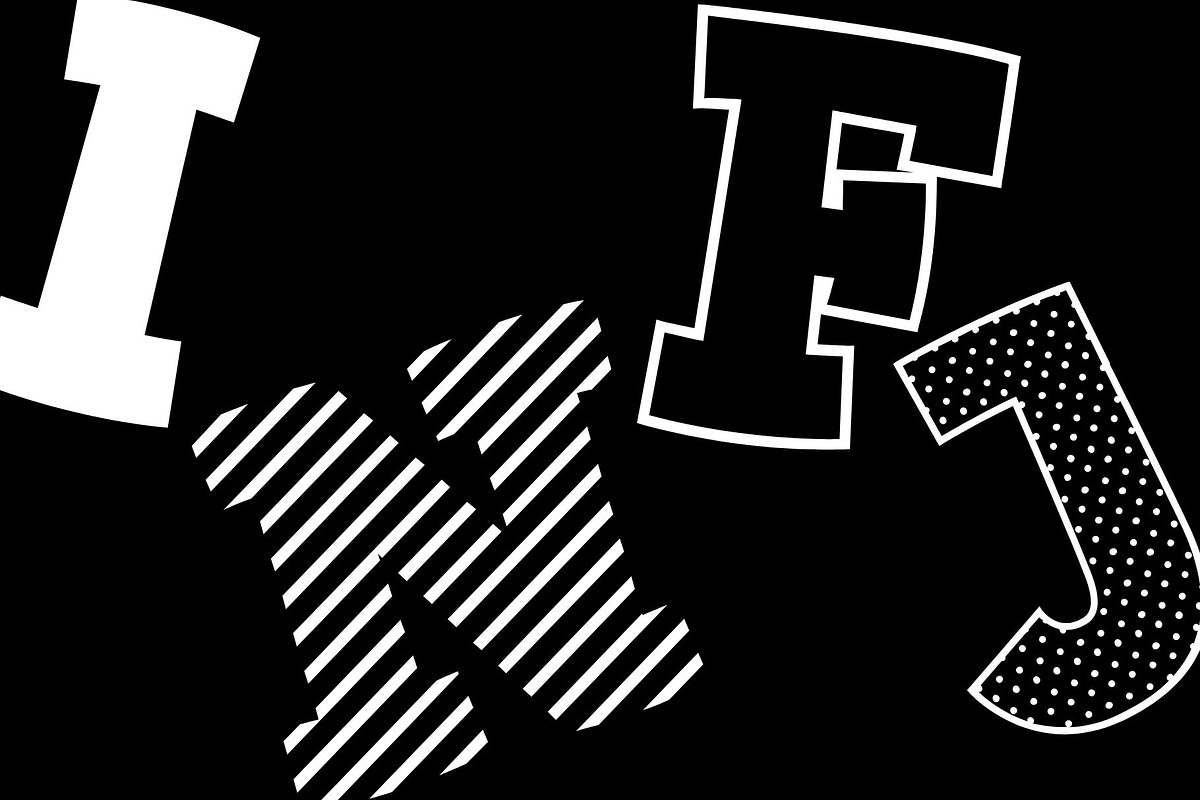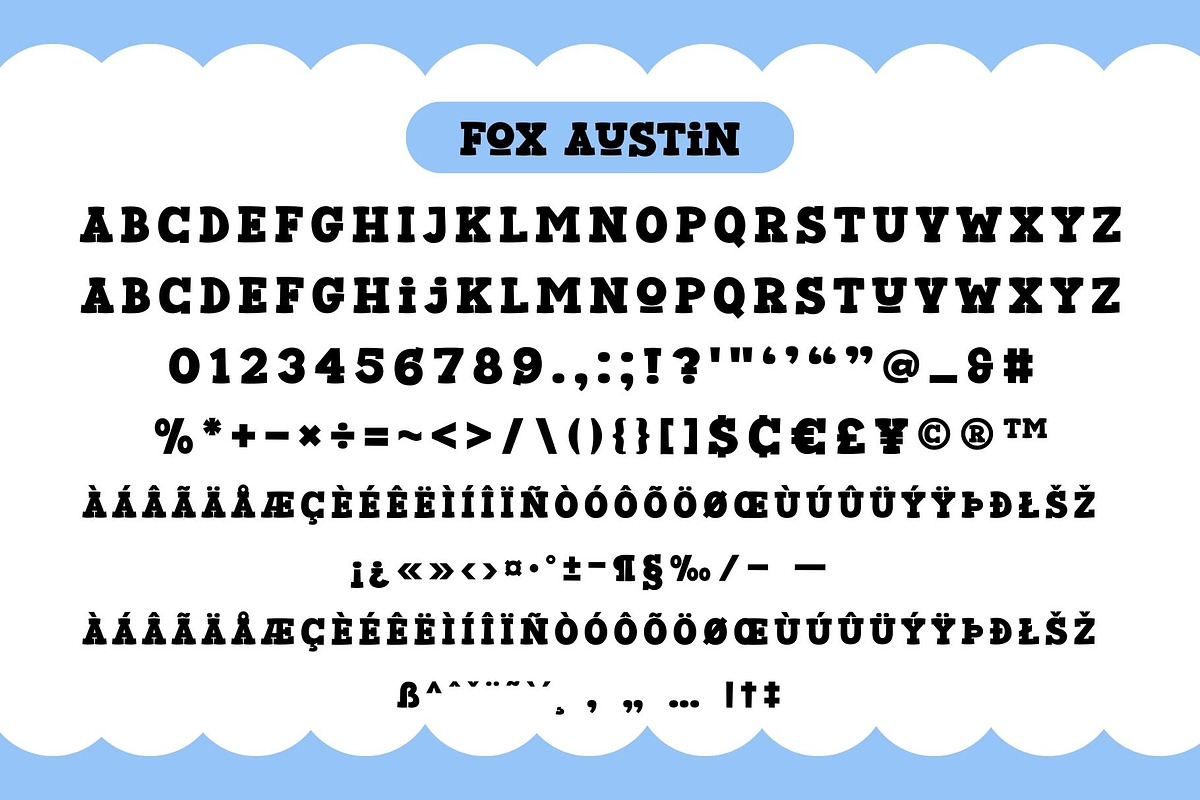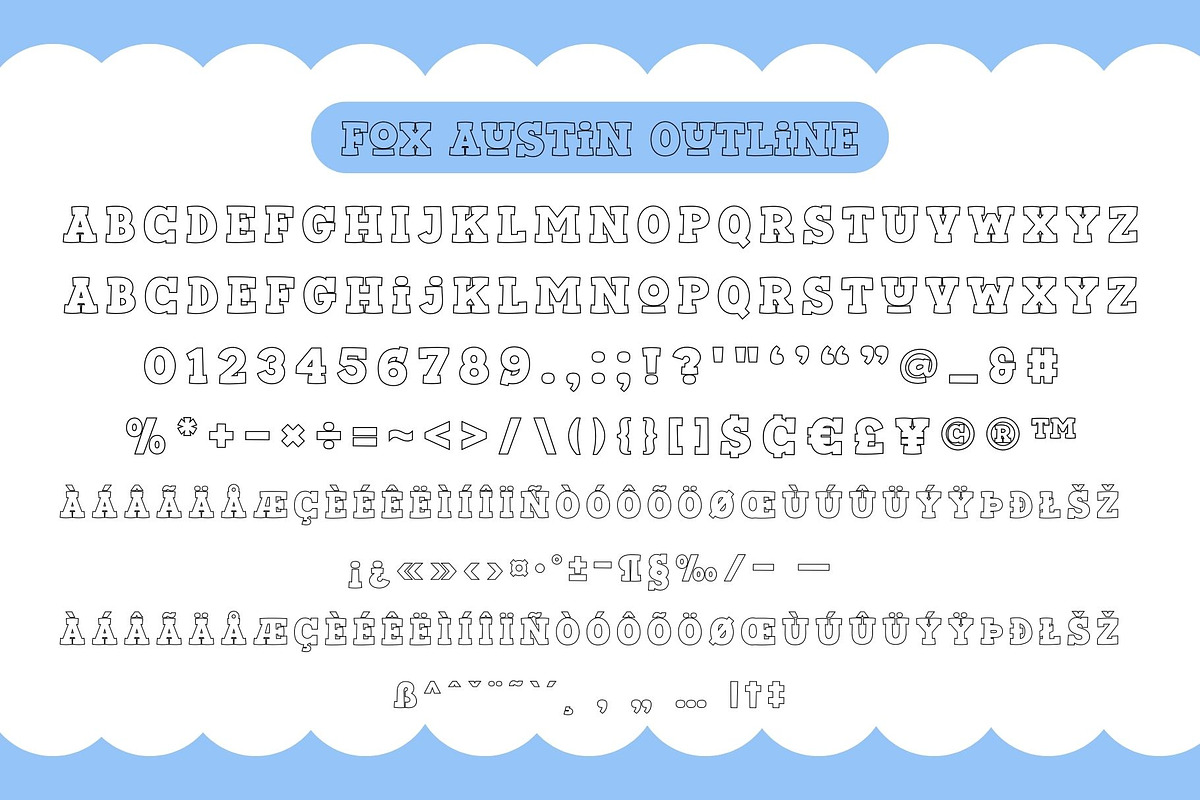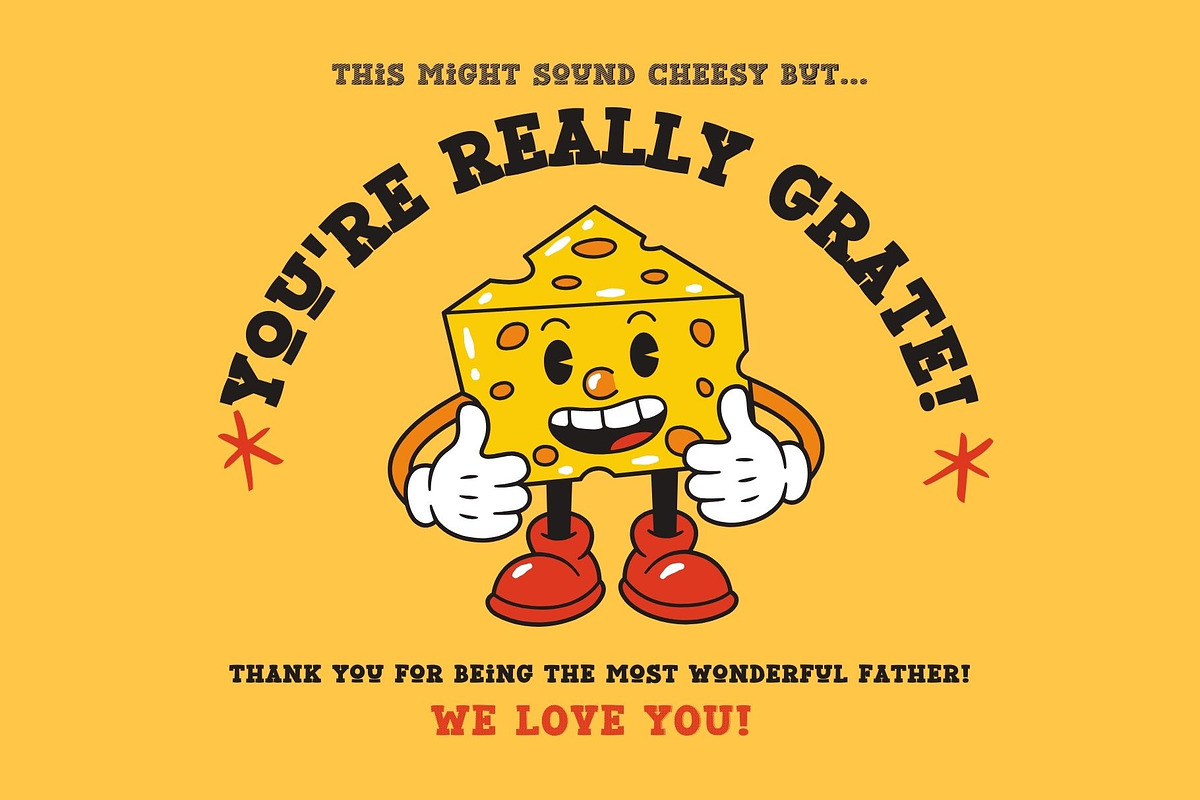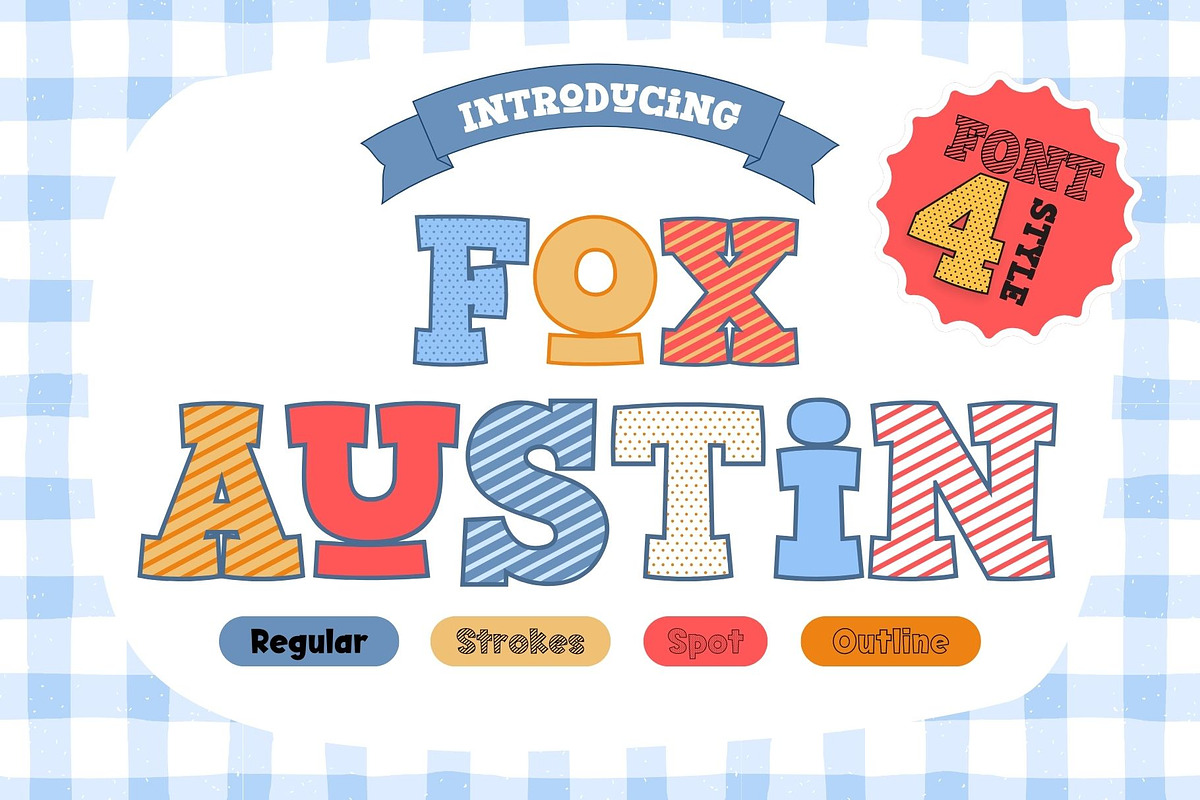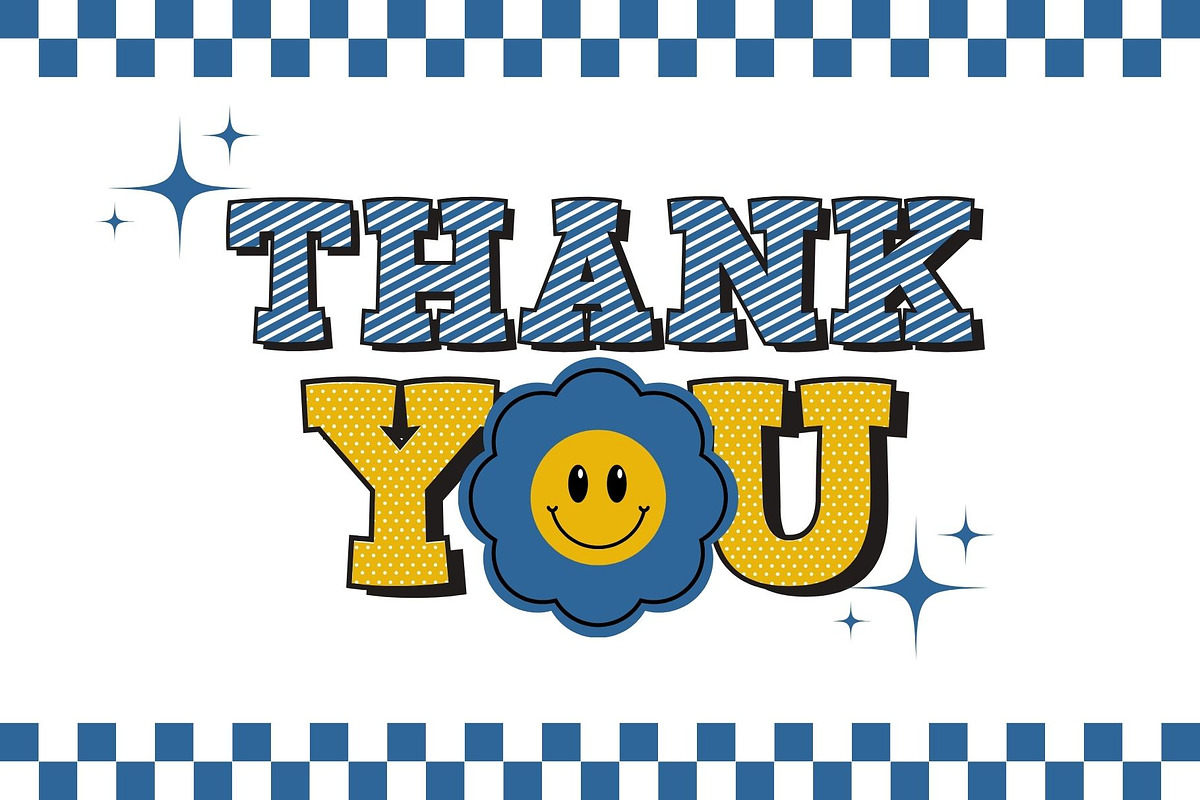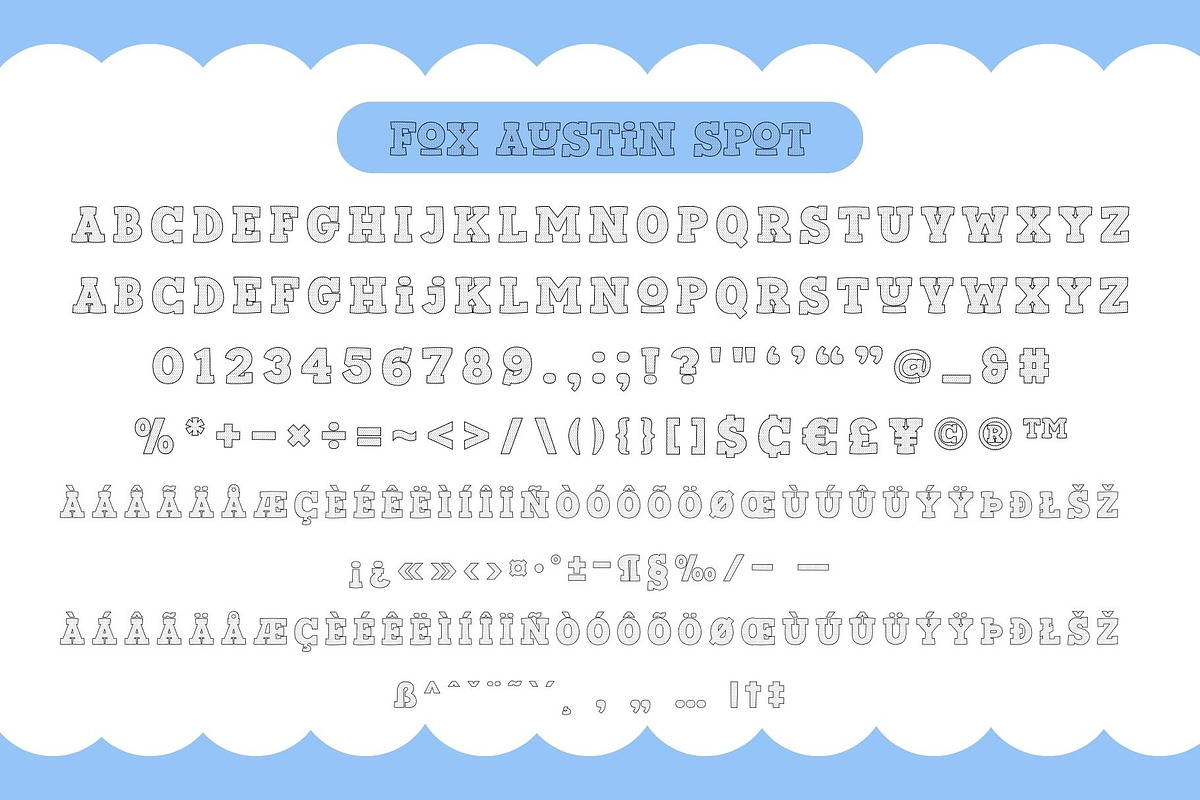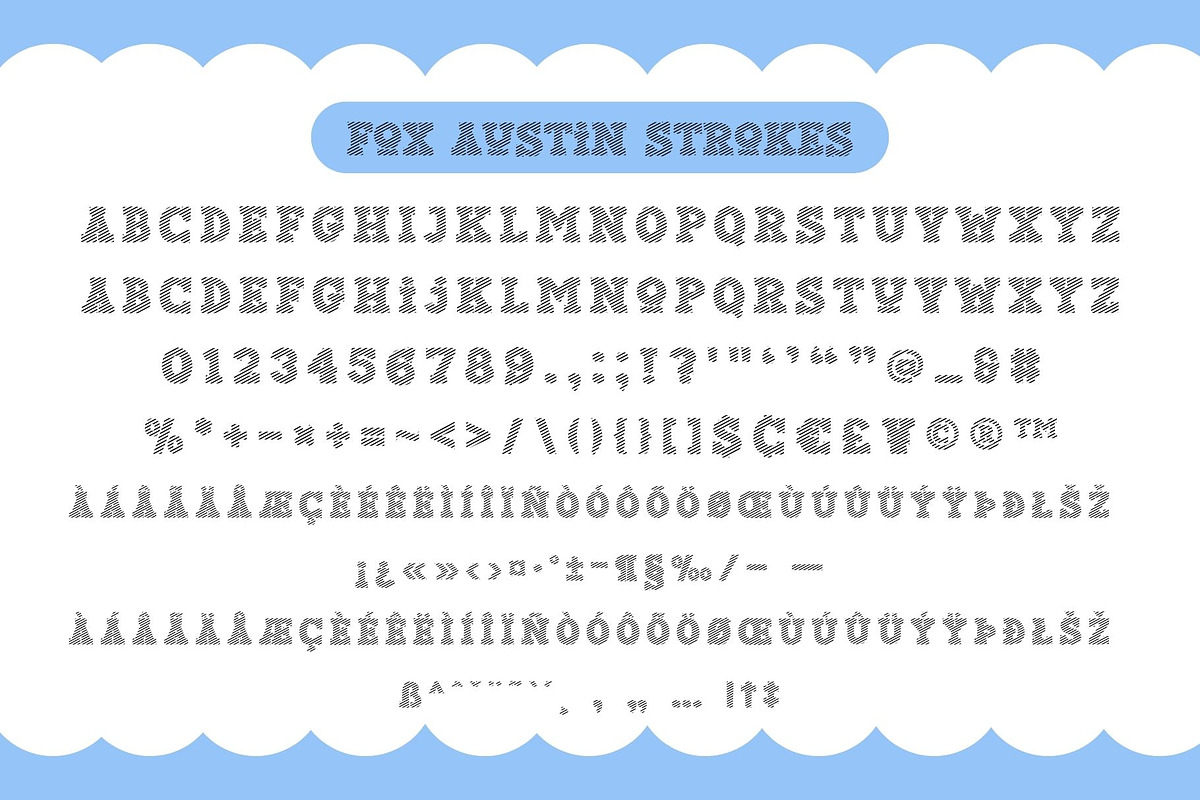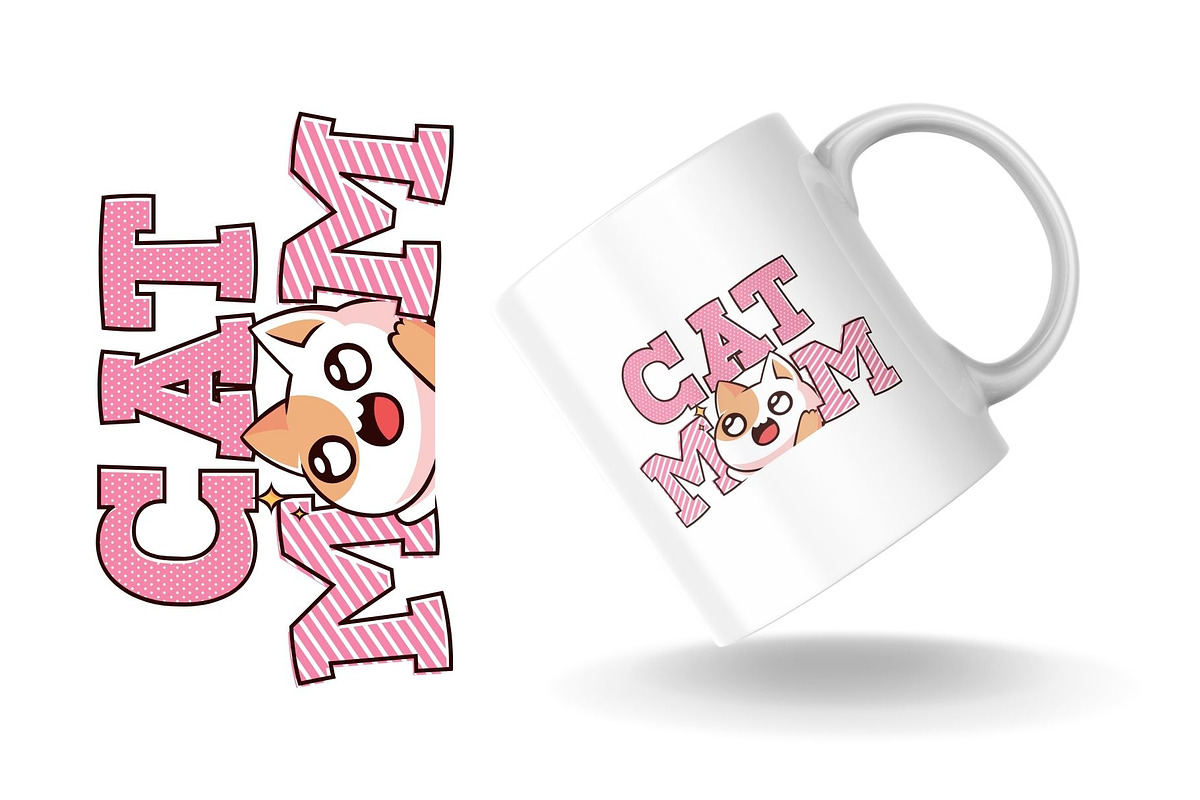
Fox Austin Fonts 4 Style
Fox Austin is a 4 style font that cool cute and playful display font that adds a captivating and energetic touch to your designs. Perfect for use in publications, menus, logos, business cards, or even printed on t-shirts, these fonts exude uniqueness. Its main feature is its vibrant and expressive design, allowing you to create attention-grabbing headlines, t-shirt typography, banners, product labels, and more